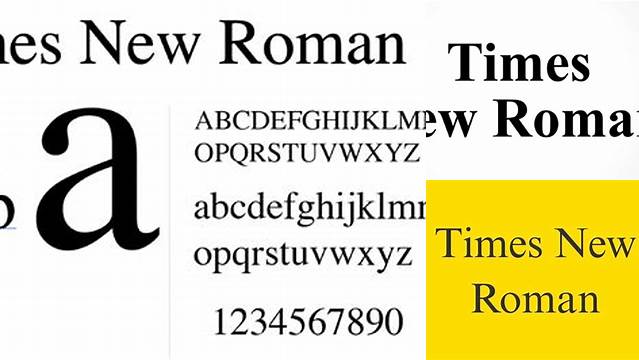
The Ubiquitous Times New Roman Font: A Deep Dive
When it comes to fonts, there's one that stands out as a true classic, a veritable titan in the world of typography: Times New Roman. You've seen it everywhere, guys, from your school papers to formal business documents, even on the news. Its presence is so pervasive that it's almost become invisible, yet its influence is undeniable. This article is all about helping you snag that familiar and reliable Times New Roman font, and we'll be exploring why it remains such a popular choice for so many applications. We'll cover the ins and outs of downloading it, ensuring you get a high-quality version that's ready to jazz up your next project. Whether you're a student, a professional, or just someone who appreciates good design, understanding the nuances of a font like Times New Roman is super important. It's not just about looks; it's about readability, professionalism, and a certain timeless appeal that other fonts struggle to match. So, buckle up, because we're about to embark on a journey into the heart of this iconic typeface, with a focus on getting it into your digital toolkit without any hassle. We'll be touching on various aspects, from its historical roots to practical tips for downloading and using it, making sure you're armed with all the knowledge you need to make the most of this legendary font.
Why is Times New Roman So Popular, Anyway?
Ever wondered why Times New Roman pops up in almost every document you encounter? It's not an accident, guys! This font boasts a superb readability, which is a massive reason for its enduring popularity. Designed specifically for newspapers in the 1930s, its narrow-set, high-contrast design makes it easy to read even in small sizes and across long columns of text. This heritage means it’s incredibly efficient with space, a big win for print media back in the day and still relevant for digital displays now. Beyond just being readable, Times New Roman exudes a sense of formality and professionalism. It’s the font equivalent of a crisp suit – reliable, trustworthy, and always appropriate for serious matters. Whether you’re submitting an academic paper, a legal brief, or a corporate report, using Times New Roman instantly lends an air of credibility and seriousness to your work. It's a safe bet, sure, but it's a safe bet that almost always pays off. Plus, its widespread availability on most operating systems means that documents formatted in Times New Roman will display consistently across different devices and platforms, ensuring your message is seen as intended. This universal compatibility is a huge practical advantage. You don't have to worry about the recipient not having the font installed; it's pretty much a guarantee they will. This reliability makes it a go-to for official communications and anything where consistency is key. Think about it – you wouldn't want your carefully crafted proposal to look like gibberish because the recipient's computer doesn't have that fancy new font you used, right? Times New Roman eliminates that worry. Its sheer ubiquity also means it’s familiar and comfortable for readers, reducing cognitive load and allowing them to focus on the content rather than the typeface itself. It’s a workhorse, and like any good workhorse, it gets the job done effectively and efficiently, time and time again.